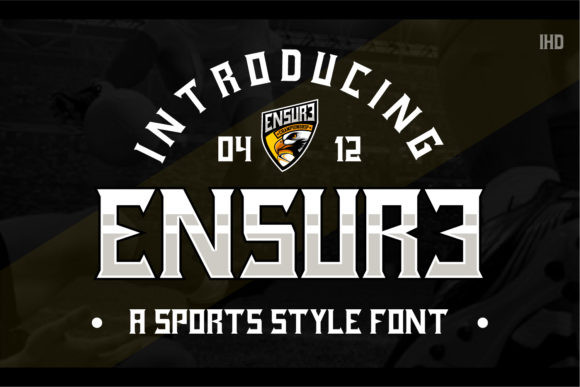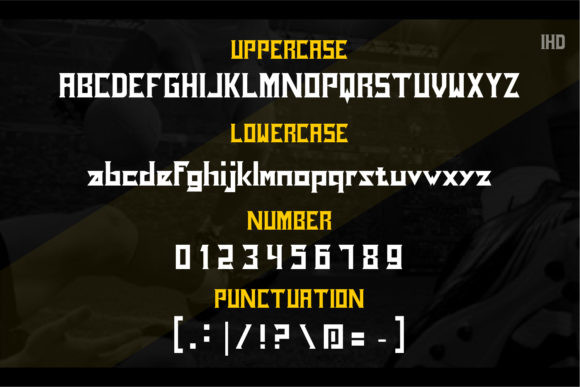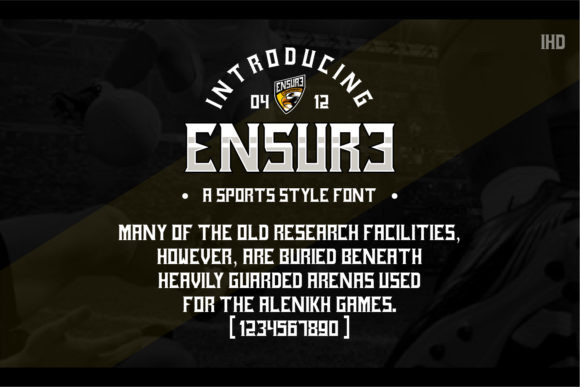
Ensure Font
Ensure is a unique typeface inspired by several iconic typography books. Extraordinary, elegant and dynamic, this font is suitable for logos, posters, layouts, cards, and many more design ideas!